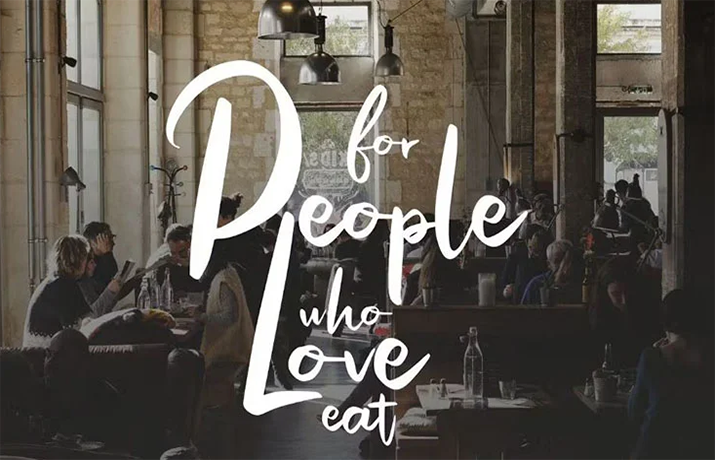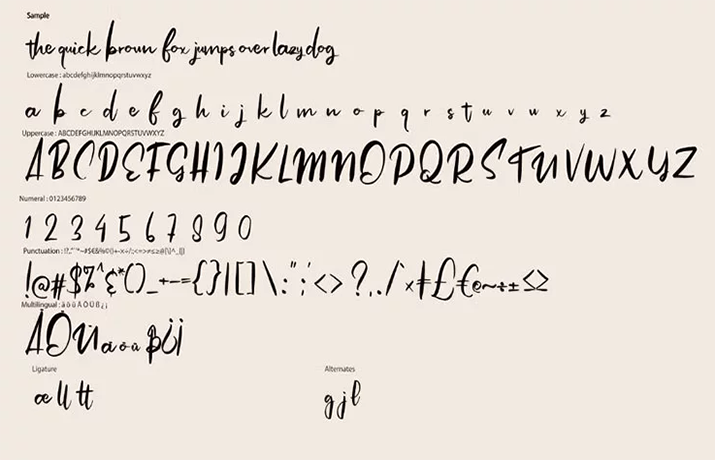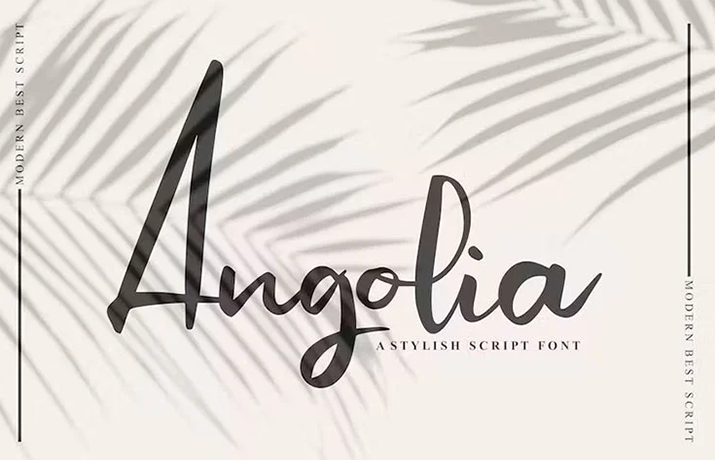
Angolia Font is a script handwritten typeface with a playful and whimsical vibe. It was designed and published by Riki.
This is a natural handwritten font because all the letters are created by hand. But they are all drawn with thick to thin strokes so it is most likely that the designer used a marker to draw the letters.
Its casual playful look makes it an excellent choice for a wide range of purposes such as children’s books, social media posters, websites, branding, signatures, and more.
Style: | Handwritten, Script, Typeface |
- Because of its roughness, this adorable font will enable you to create beautiful creations. Special quotes, taglines, t-shirt printing, birthday cards, invitations, book covers, signs, kid’s elements, product designs, labels, birthday cards, social media banners, titles, headers, special event cards, YouTube thumbnails, signatures, and more are a few examples.